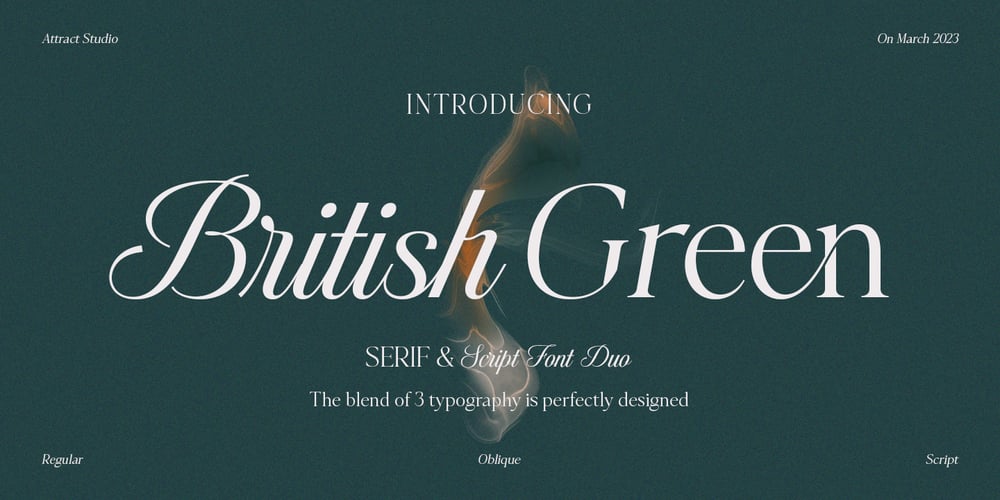
British Green Font Duo Font Family was designed by Muammar Kadafi and published by Attract Studio. British Green Font Duo contains 3 styles and family package options. British Green is a font duo consisting of a script font and a serif font that stylizes attractively when placed side by side. Which comes with upper and lower case characters in each individual font.British Green is a versatile set of fonts that can be used & suited across a variety of design projects.Includes: Serif, Oblique, Script. Multilingual Support PUA Encoded Characters.